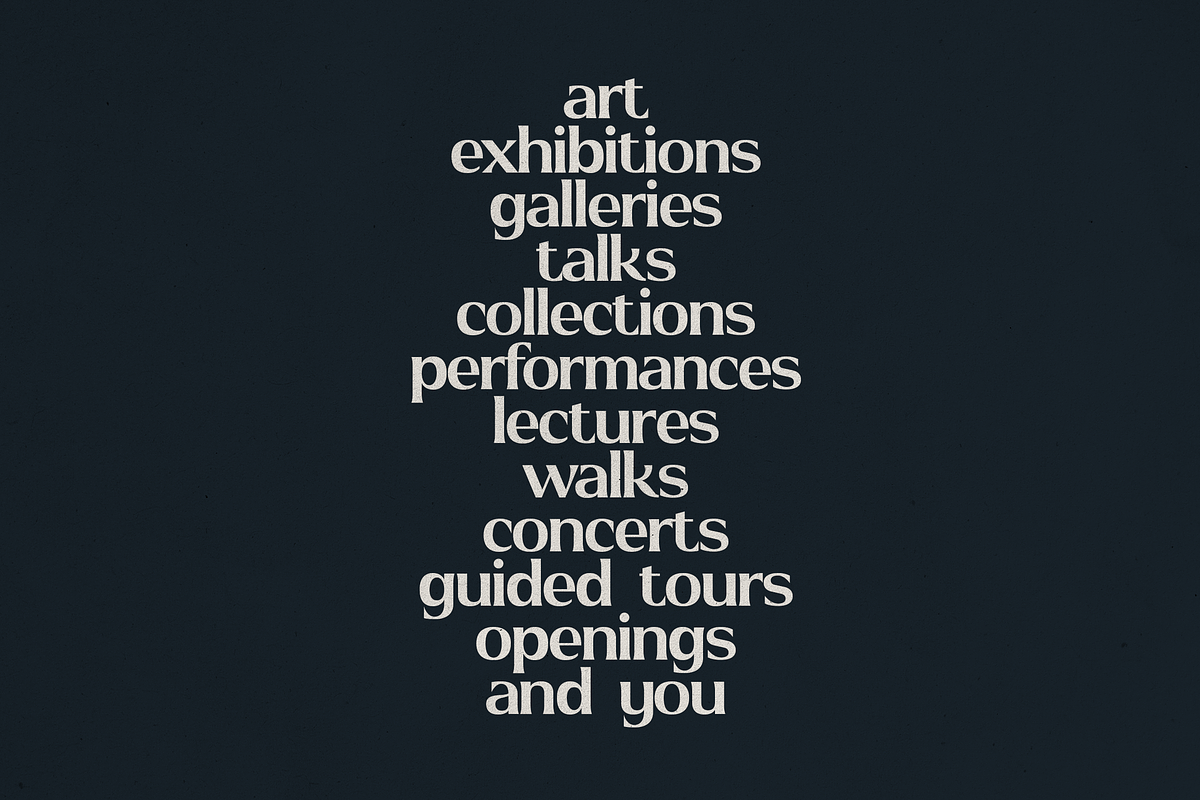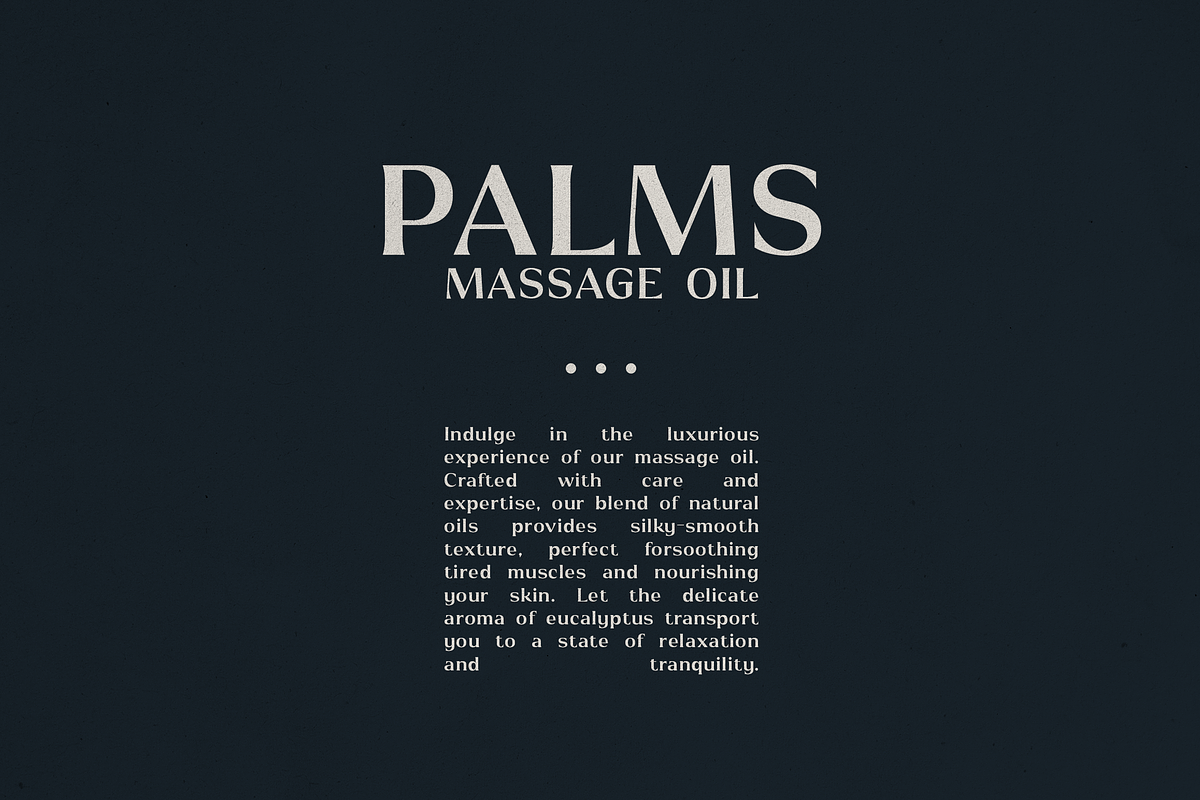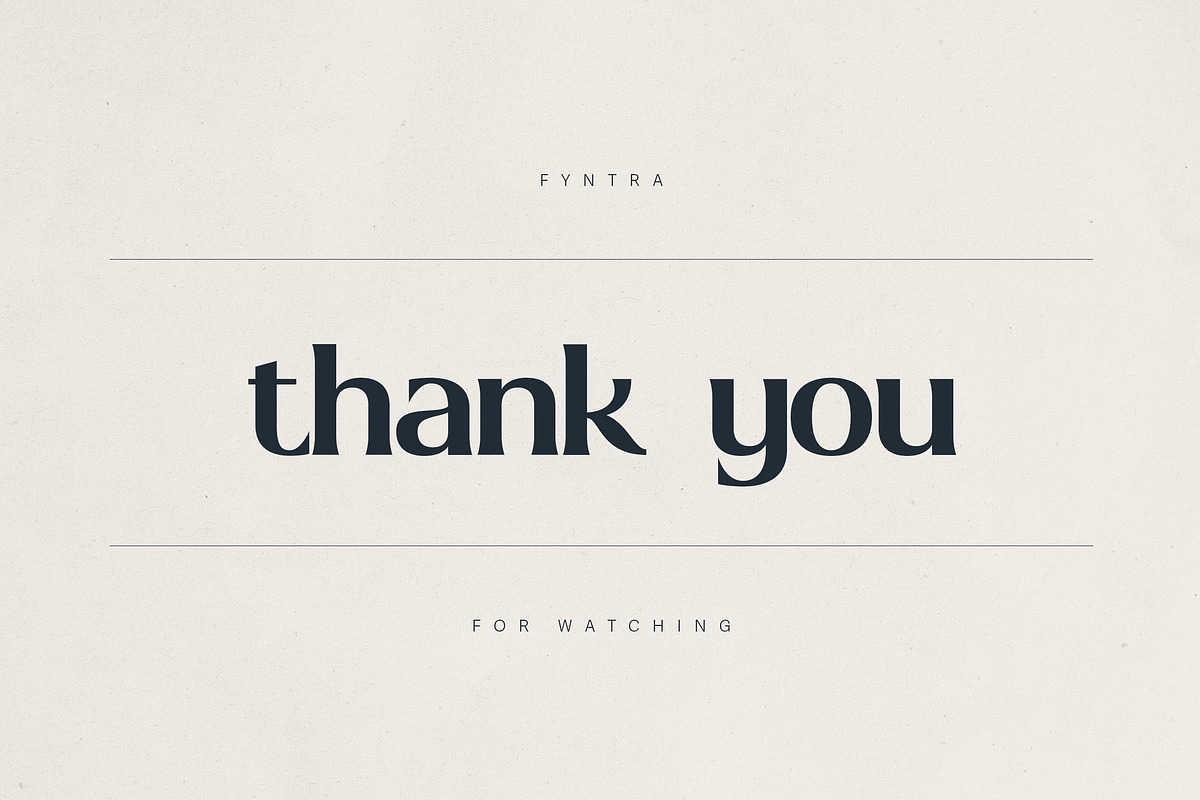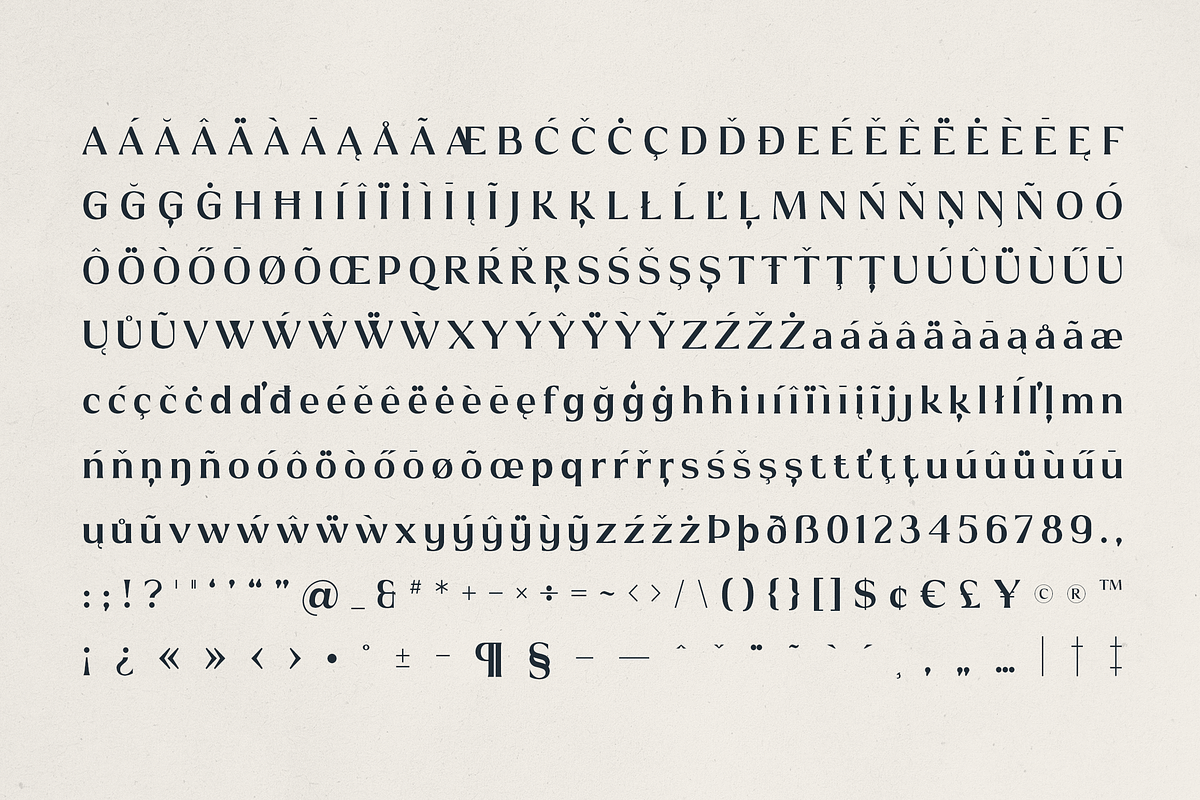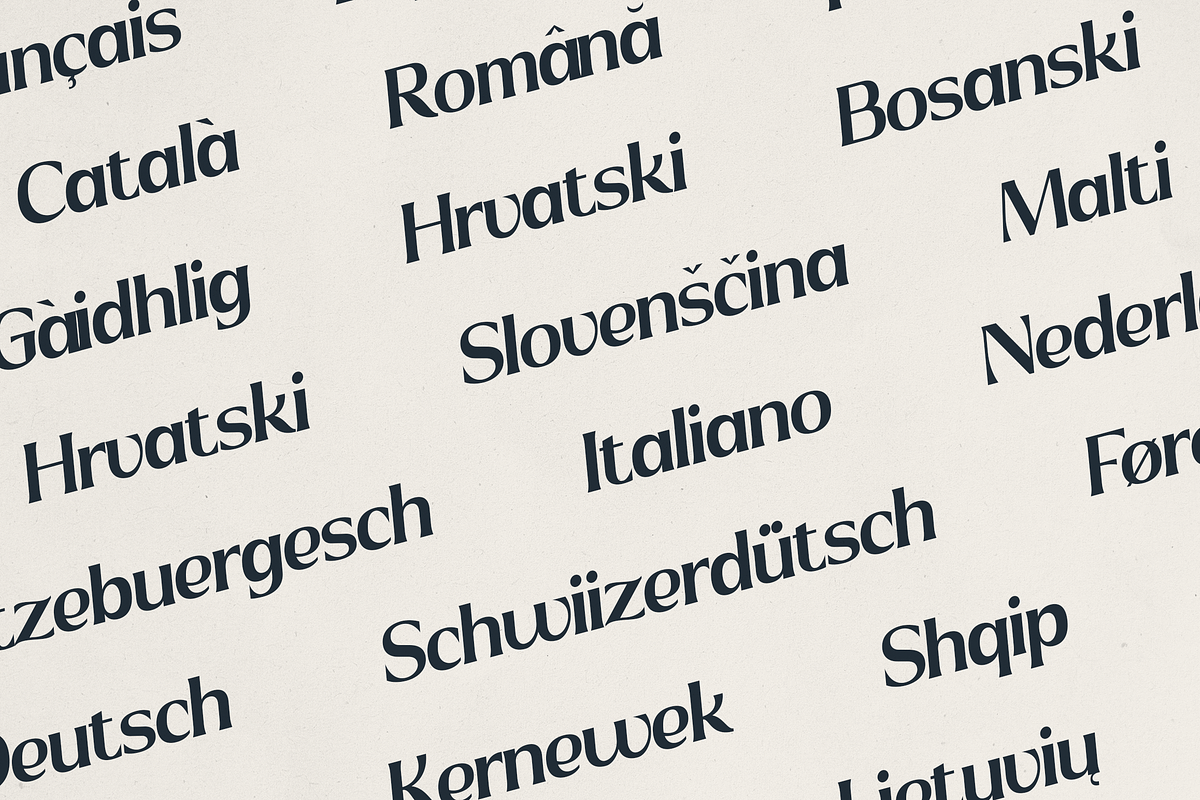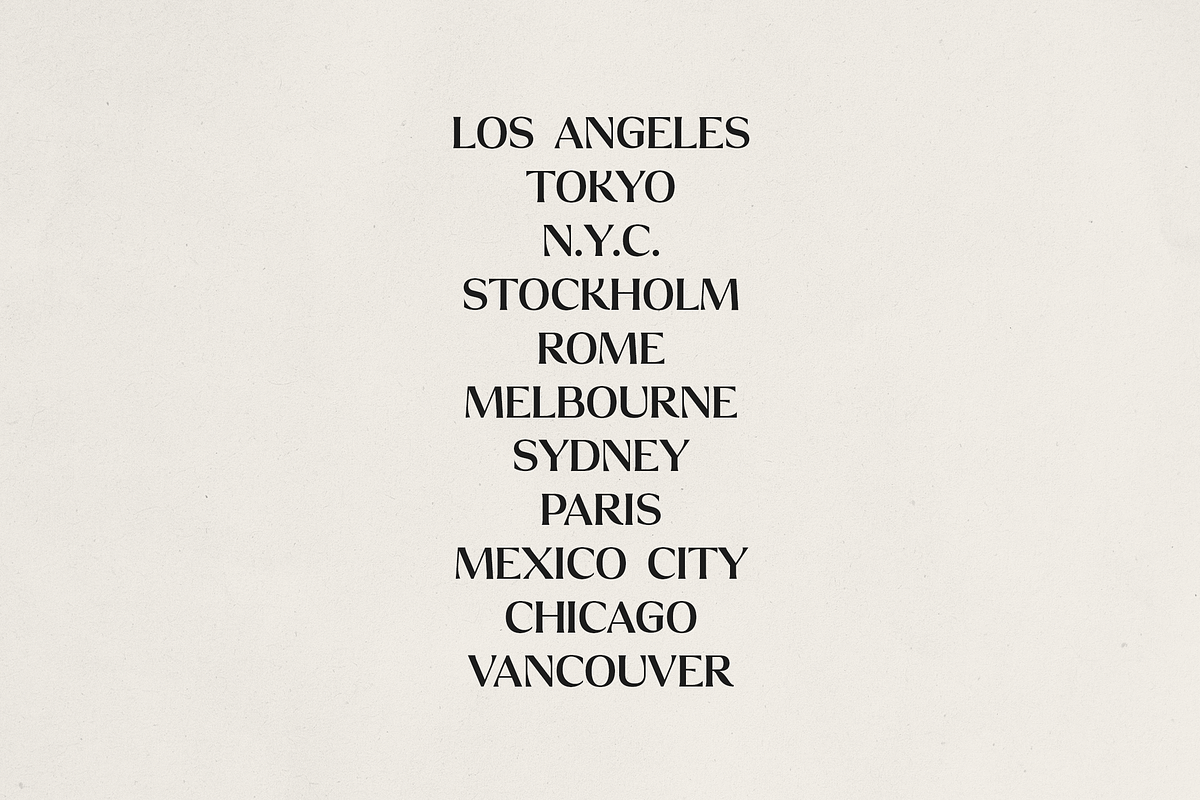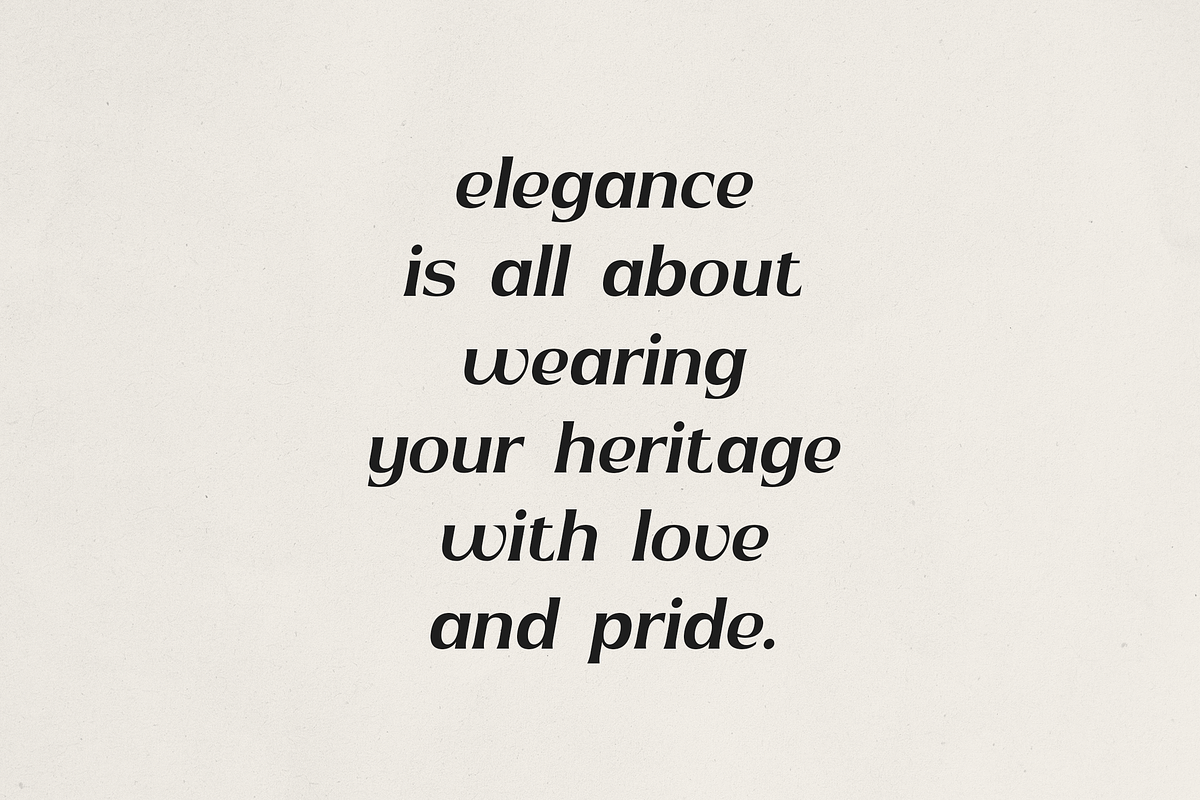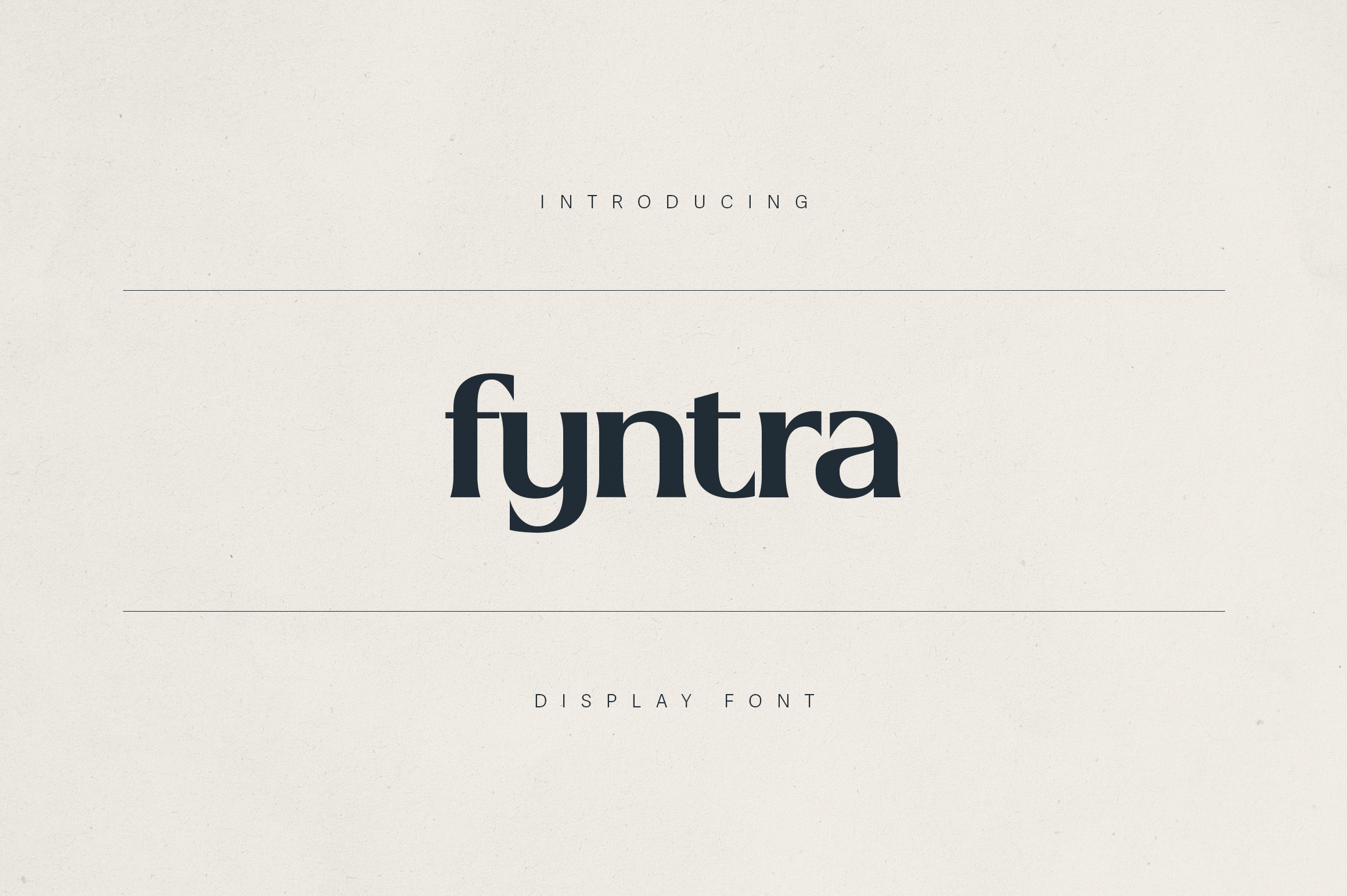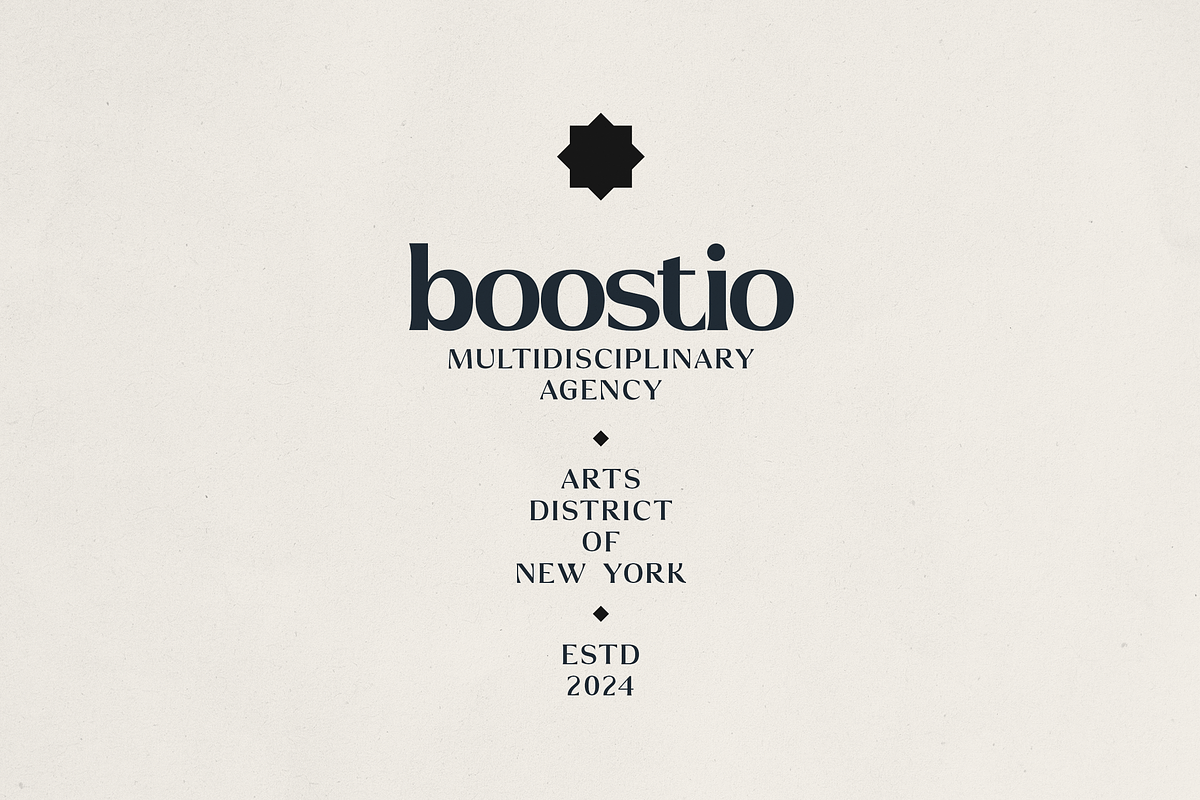
Fyntra – Modern Elegant Display Font
Fyntra – Modern Elegant Display Serif Font
Fyntra is a contemporary display serif font designed to bring refined elegance and confident personality to branding, editorial design, packaging, and high-end creative projects. With its distinctive letterforms—combining classic serifs, sleek curves, and sharp terminals—Fyntra stands out in headlines, logos, and artistic compositions.
This typeface supports over 85+ languages and includes a full set of upper and lowercase letters, numbers, punctuation and multilingual accents. Fyntra blends modern aesthetics with a timeless flair, making it ideal for creative agencies, fashion labels, luxury goods, beauty products, and cultural publications.
Whether you're designing a magazine cover, creating visual identity for a boutique brand, or crafting captivating social media graphics, Fyntra offers both character and versatility.